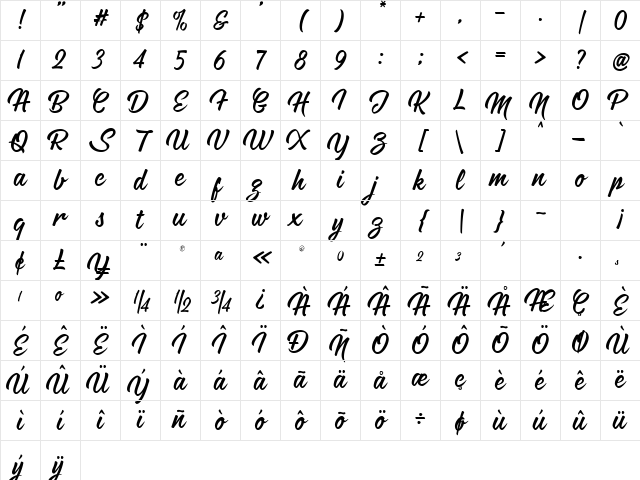
Hontana Regular
Foundry: Attract Studio
Design Context for Hontana
Hontana is a composed and adaptable typeface that performs quietly and consistently across a wide range of design contexts.
Pro Tip: Use Hontana in both headline and body roles to test its range before committing to a single application.